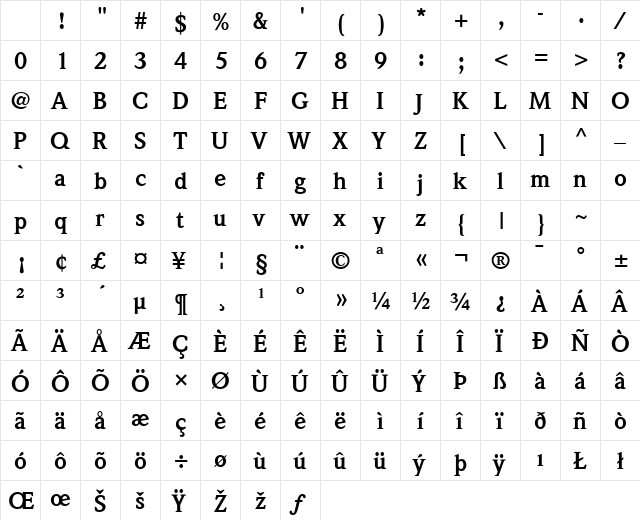
Complete Quintessence SSi Bold glyph index. Displaying only characters natively supported by Quintessence SSi Bold font.
Quintessence SSi is a composed and adaptable typeface that performs quietly and consistently across a wide range of design contexts. Its bold stroke weight gives it real presence on the page.